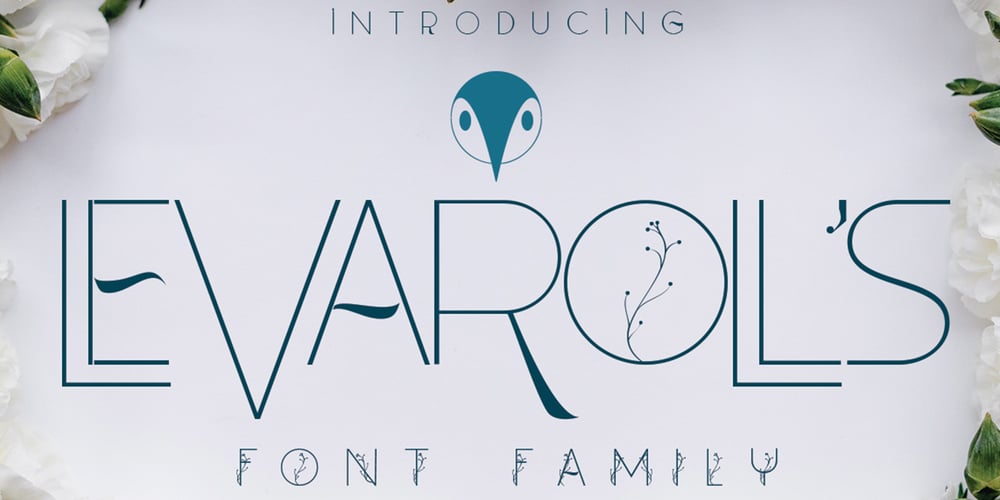
Levarolls Font Family was designed by Ibram Syah and published by Jehansyah. Levarolls contains 4 styles and family package options. this is a cool sans serif font with a casual and complete with unique icons that you can make a logo or decoration on your design